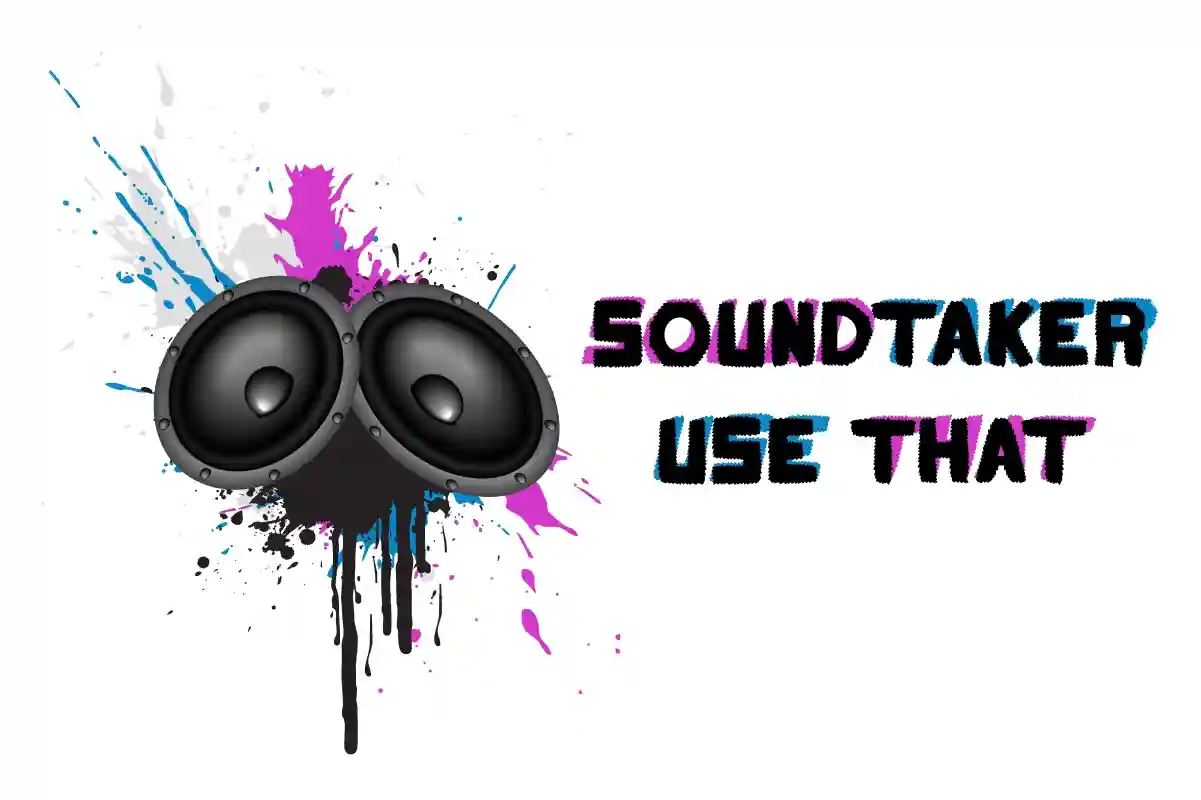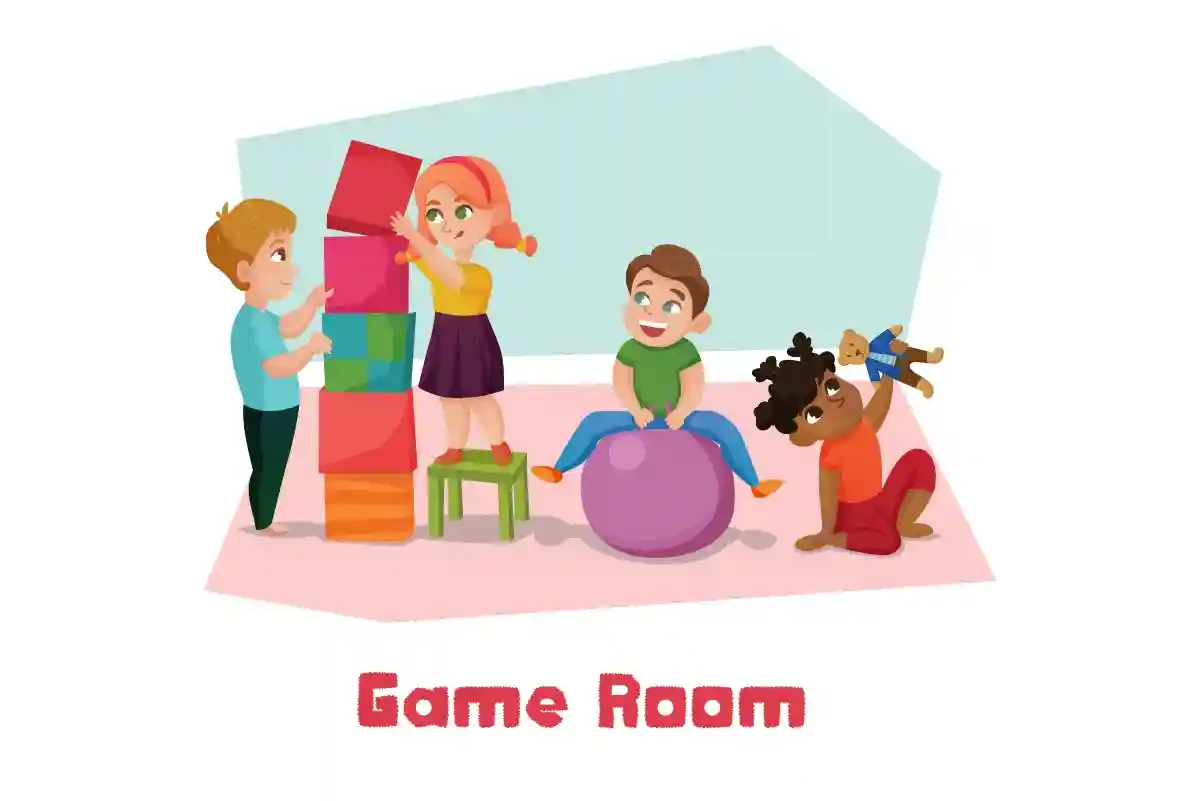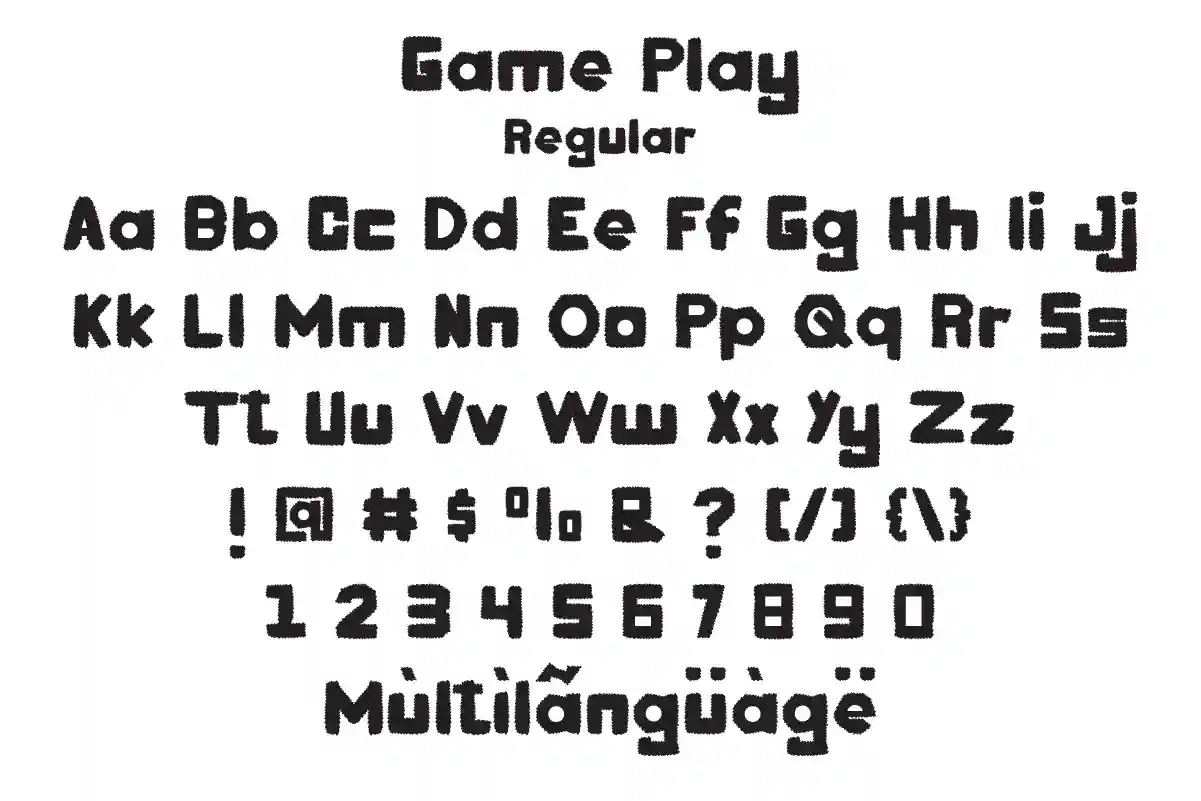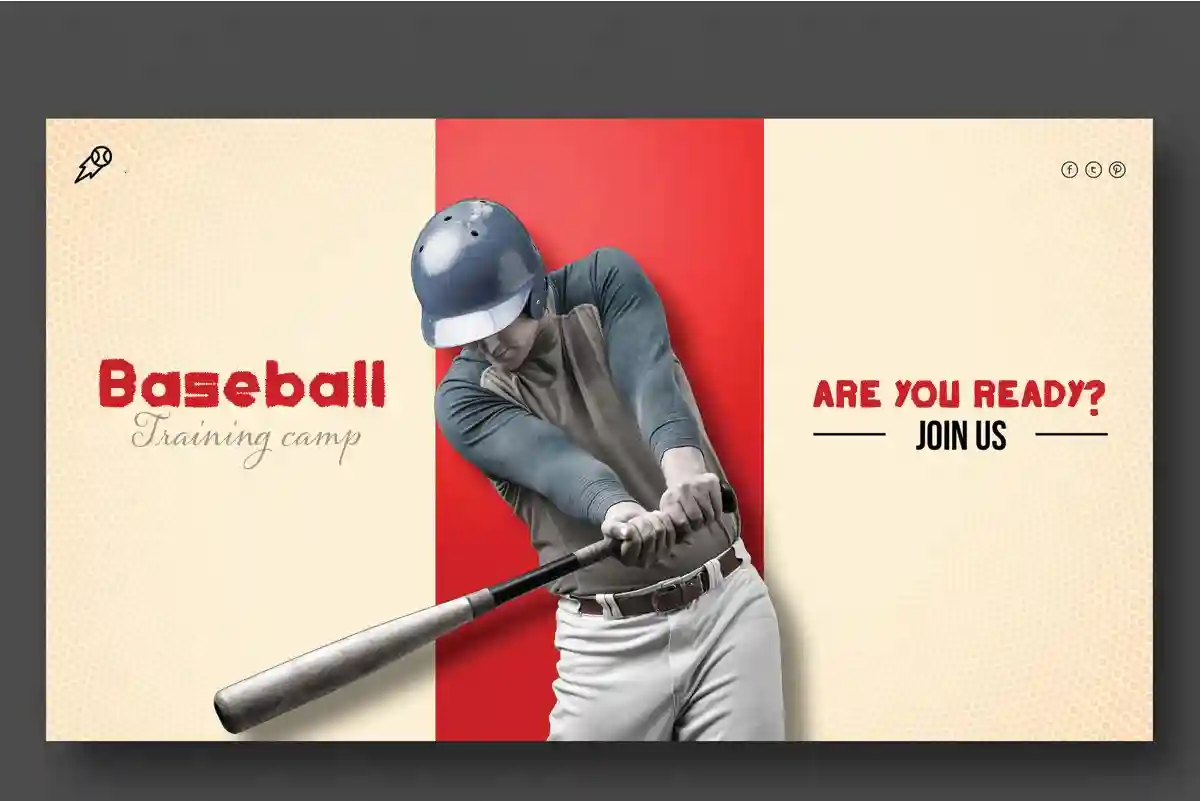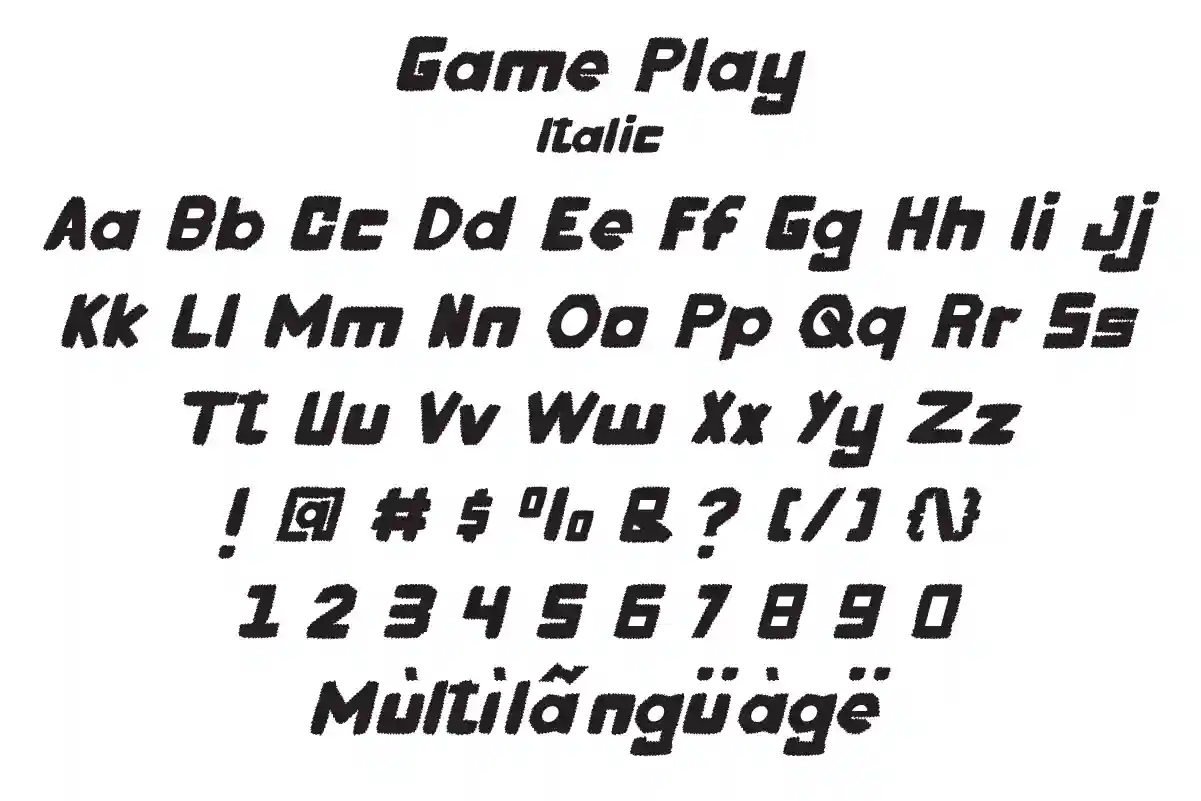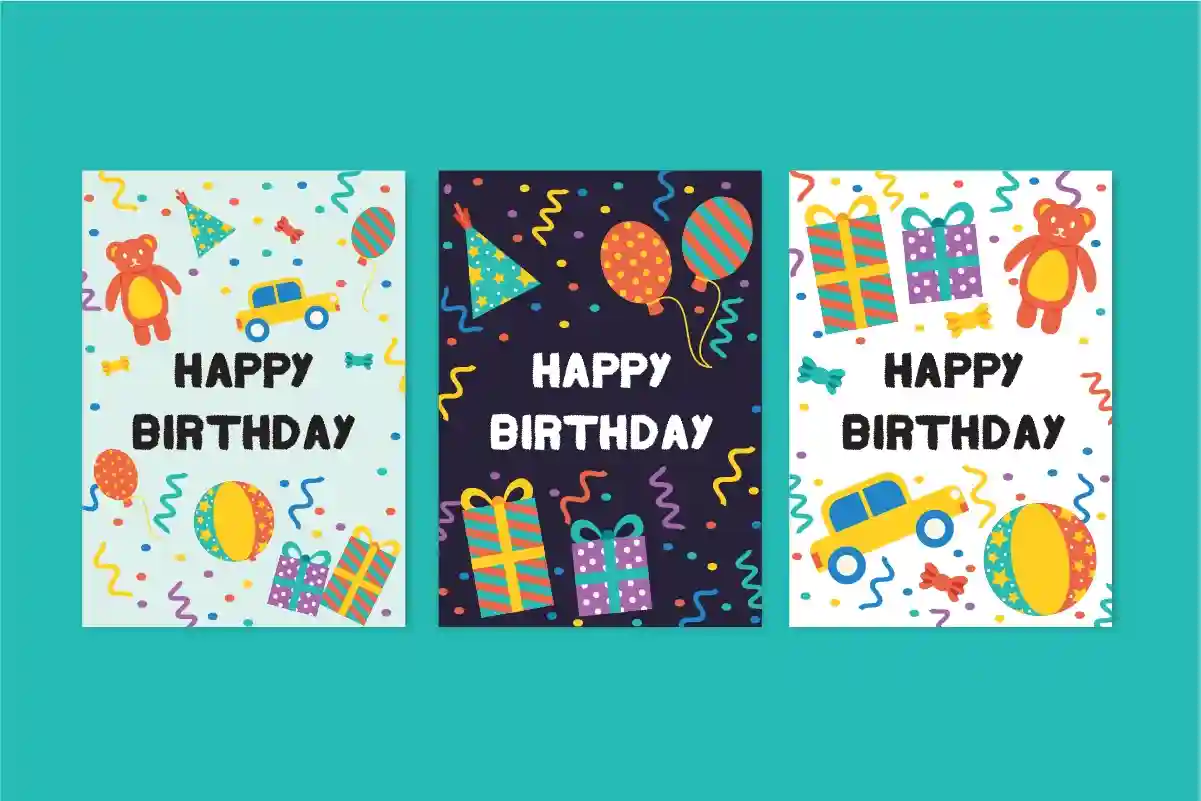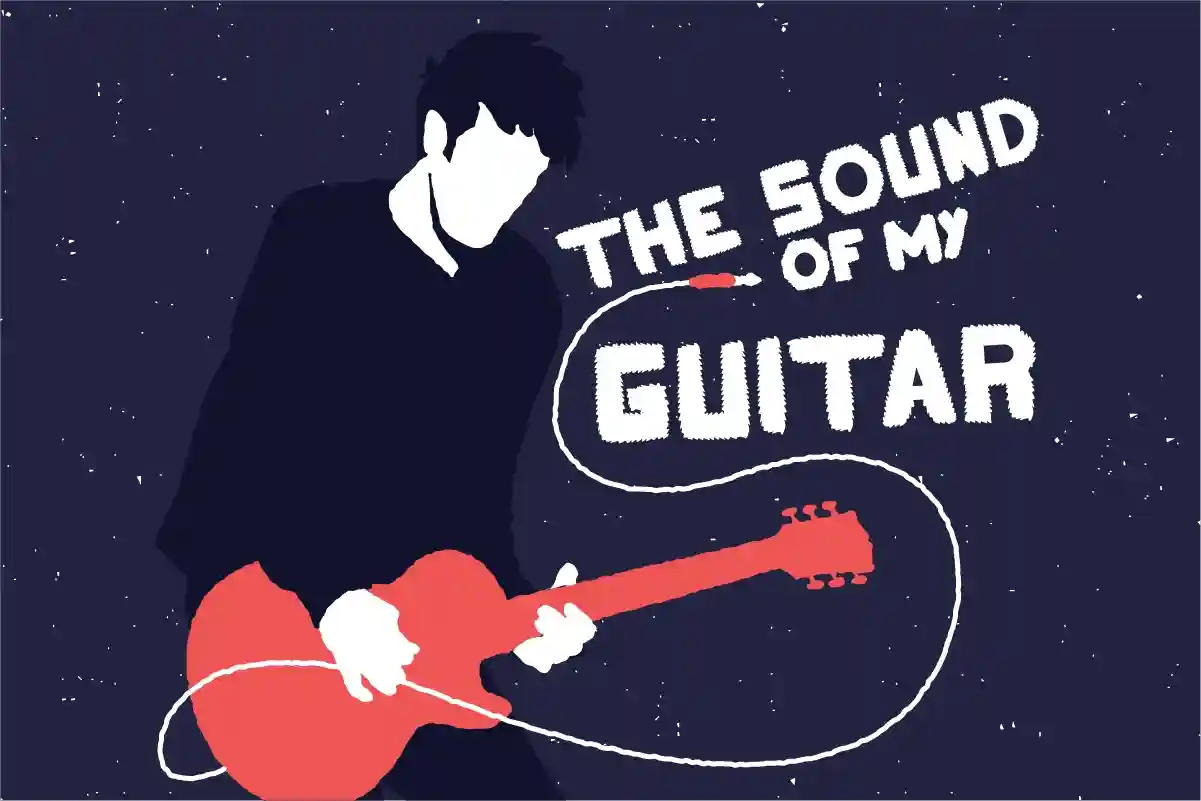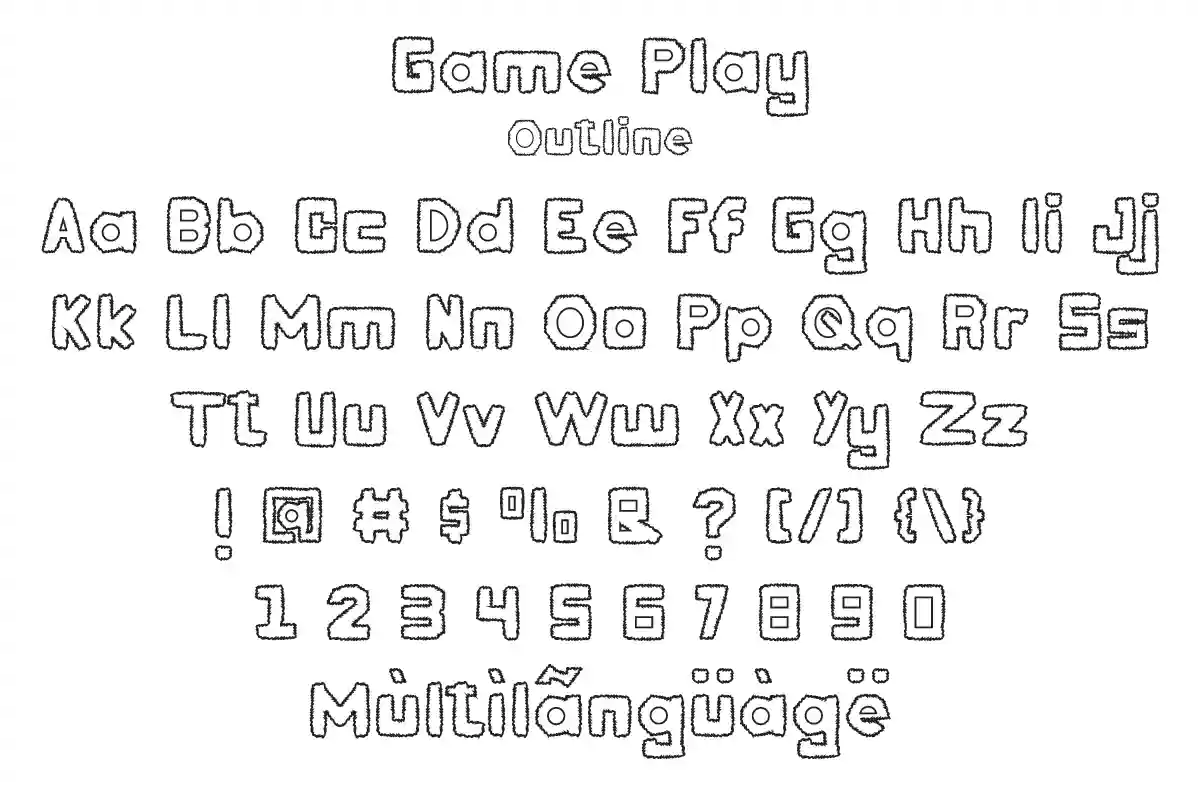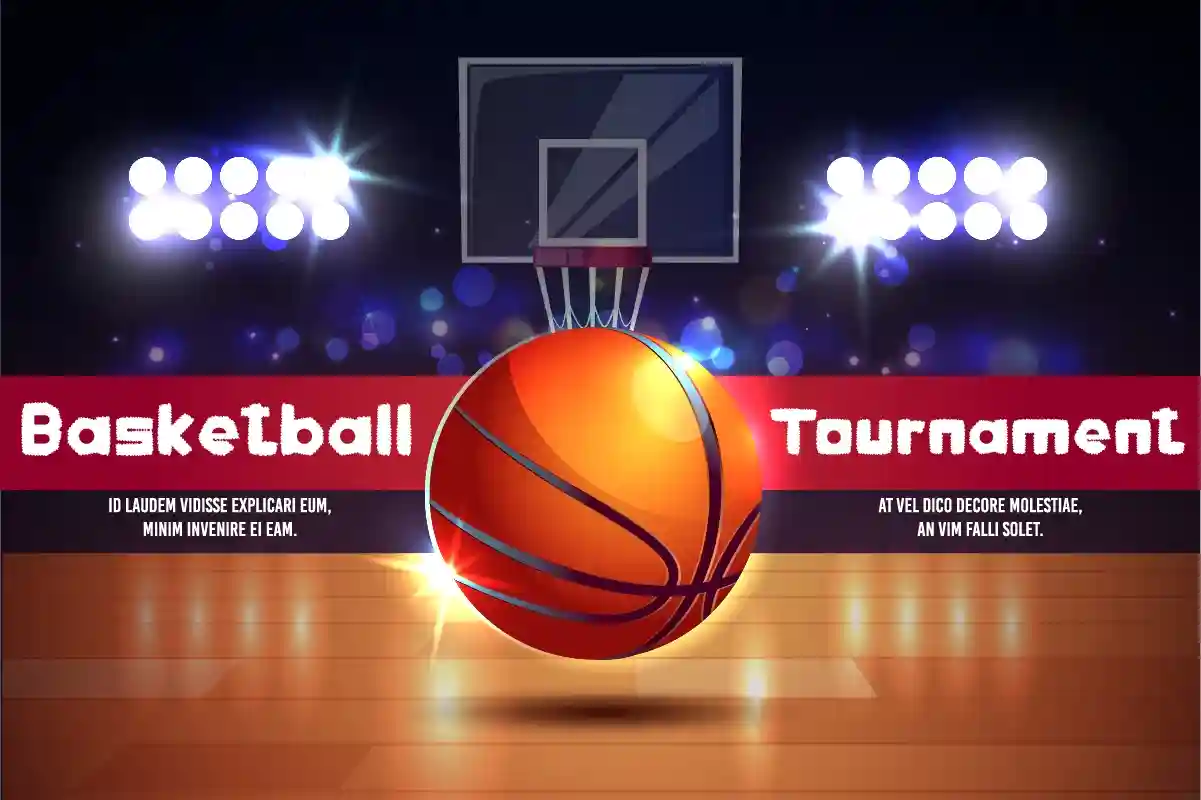
Game Play Font is a unique sans serif display font with unique characters. The font was also inspired by several games, techno and hip poster. It has a unique style that will bring the special effect to the design. It will works for games, technology, events, spaceship and any other things. Game Play Font includes full set of Uppercase and Lowercase Basic Characters, Numerals and Punctuation. You can also combine two or more styles on the text like we did on the cover, so you will great even more unique and special font. The font is perfect for many projects, headlines, logos, poster, tittle, products, etc